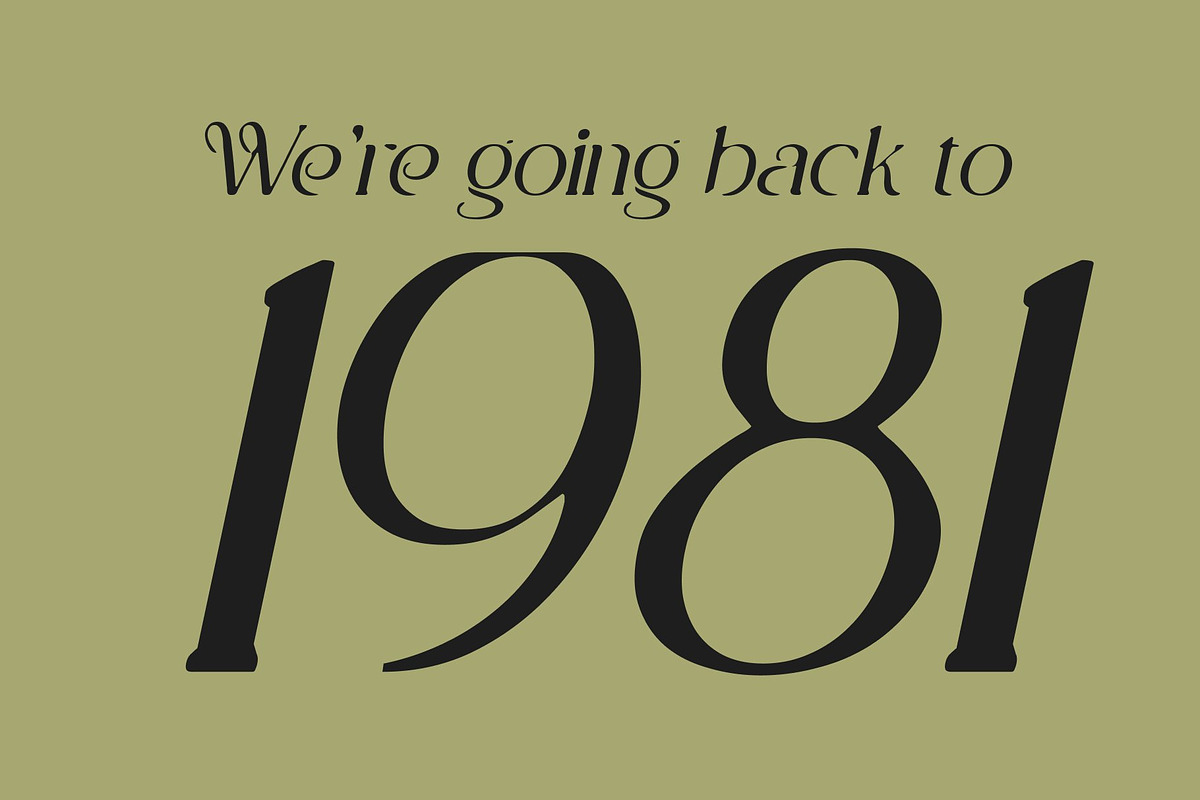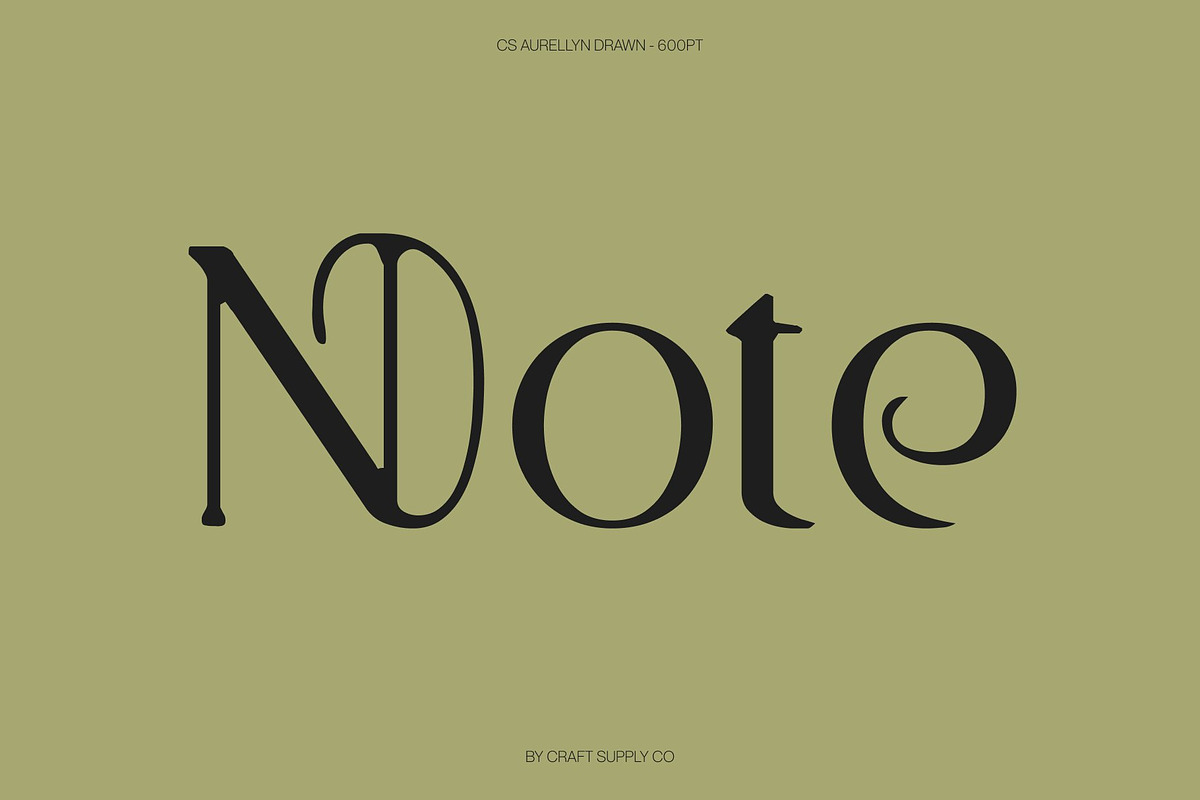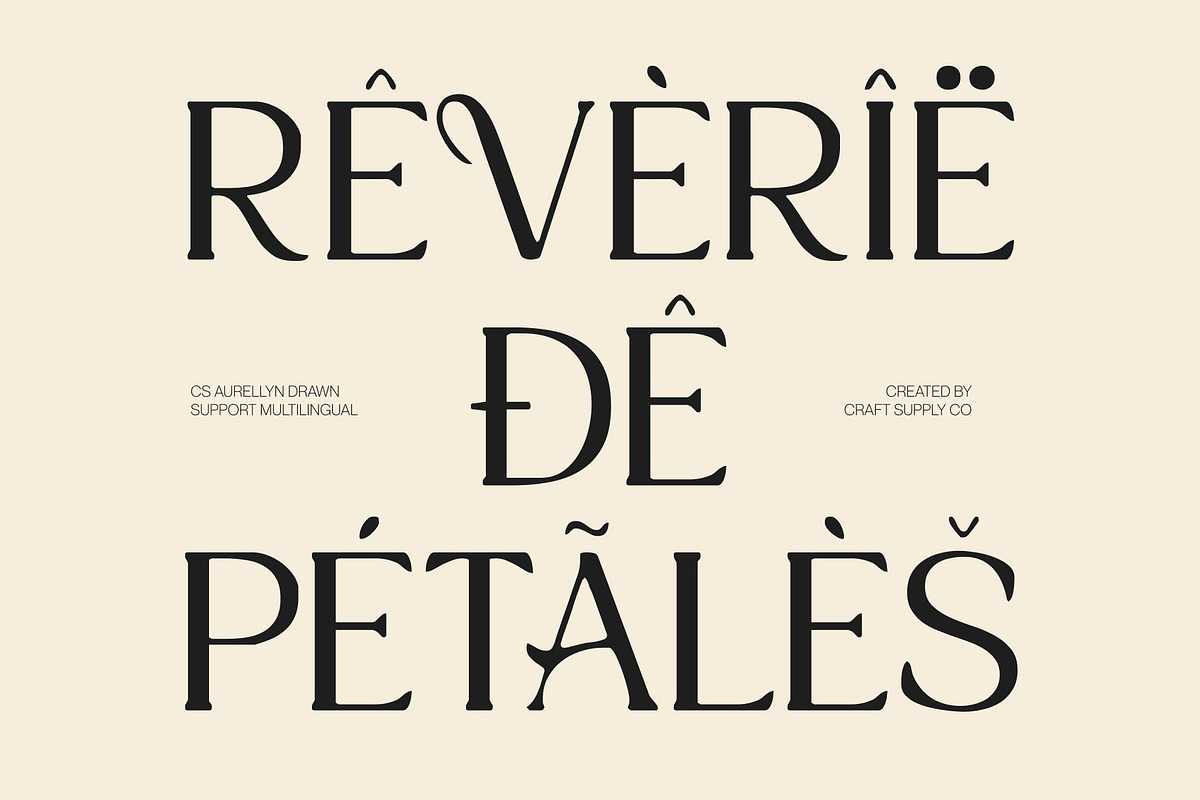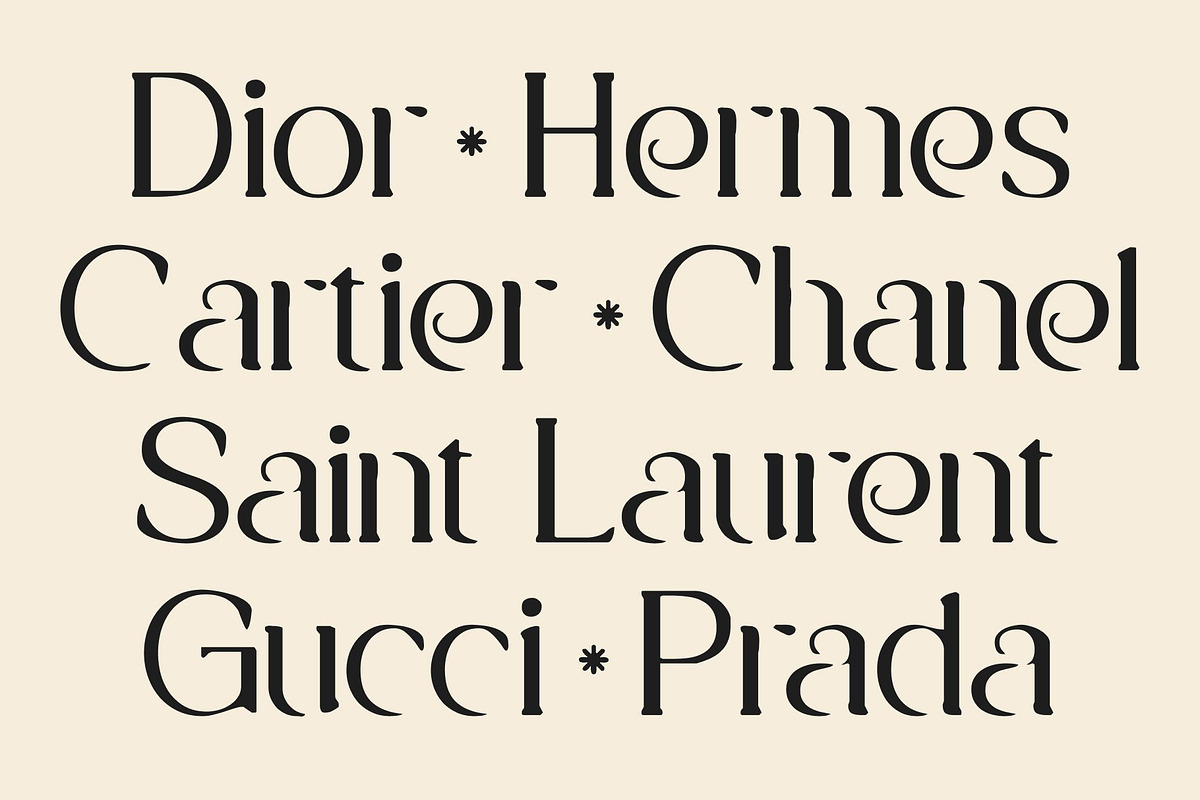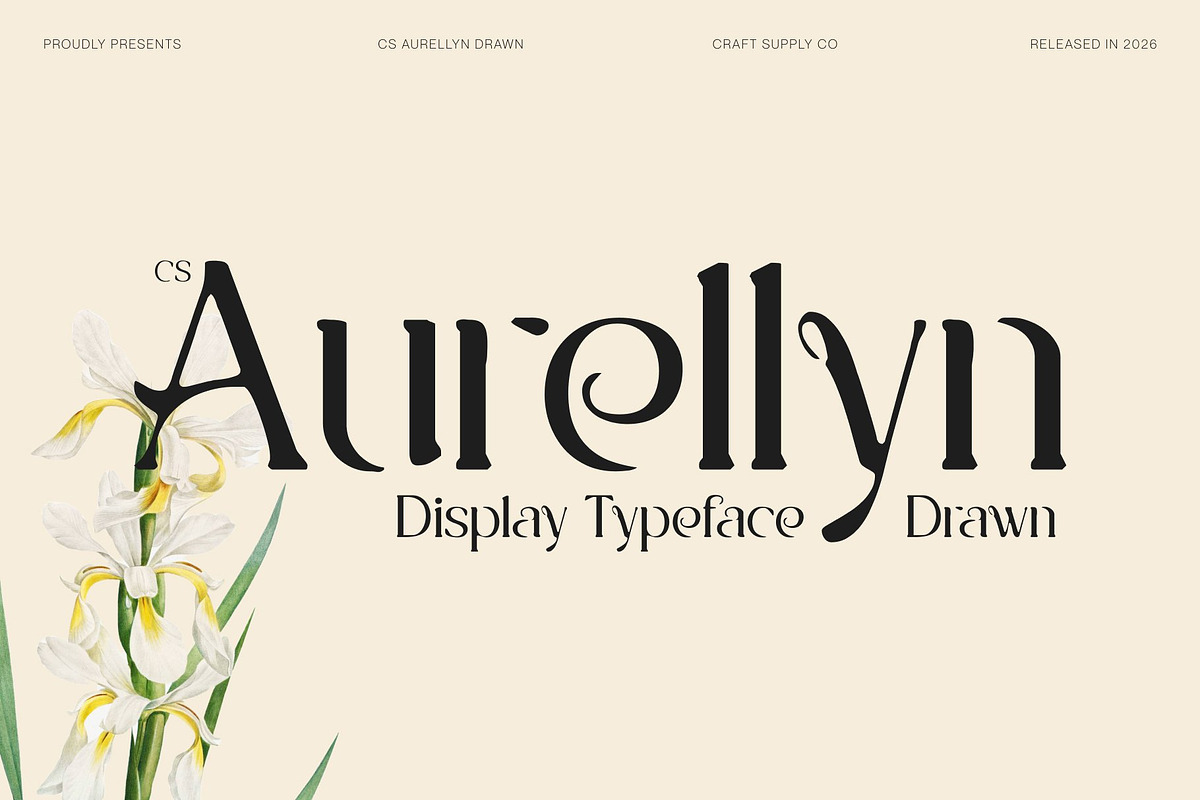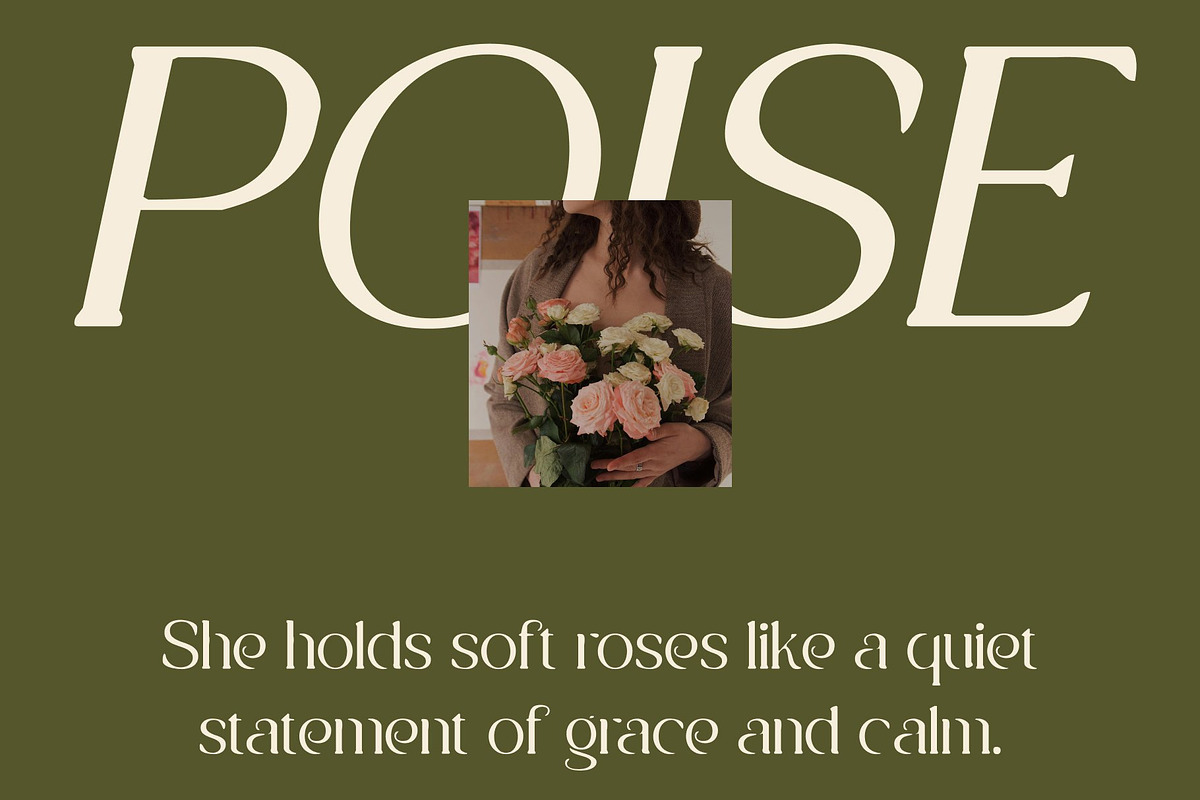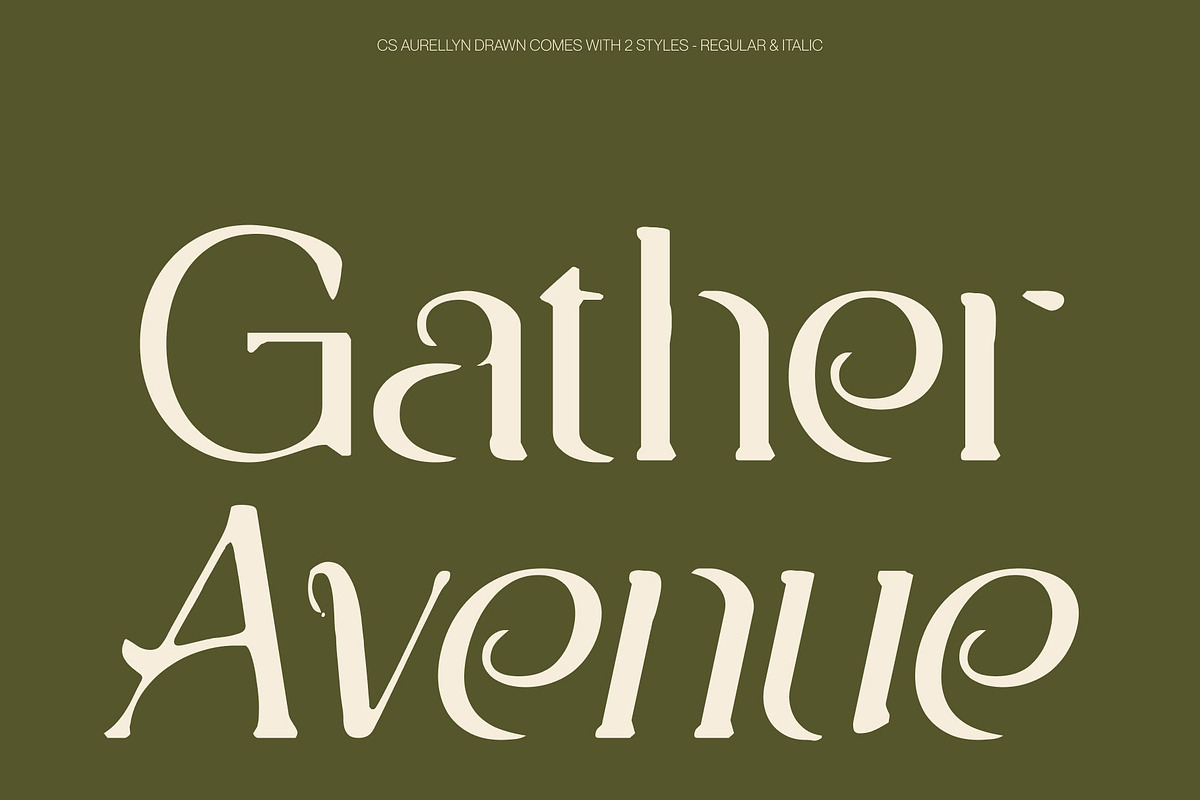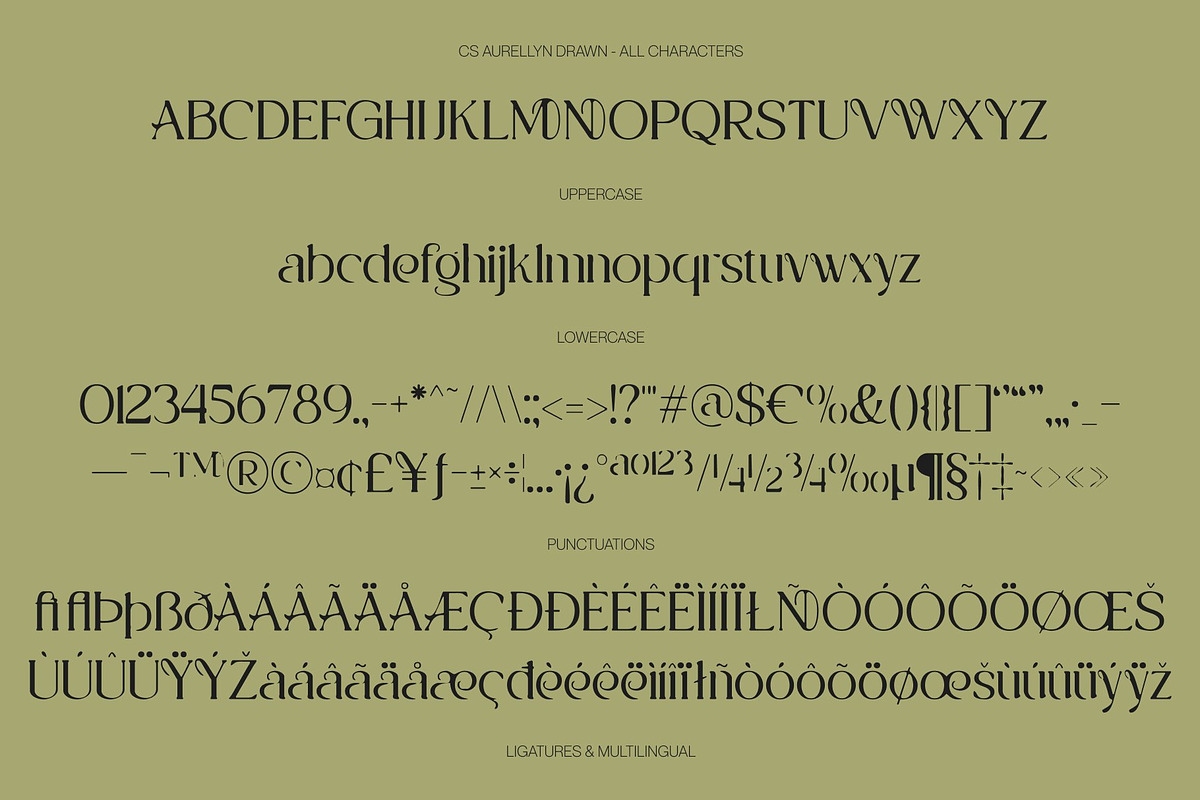
CS Aurellyn Drawn
CS Aurellyn Drawn – Modern Art Nouveau Serif with Elegant Flow
Modern Art Nouveau Serif Font with Hand-Drawn Organic Grace This is a modern Art Nouveau serif font defined by smooth, flowing lines and graceful organic forms, enhanced with a subtle hand-drawn texture. Blending the elegance of classic Art Nouveau with contemporary refinement, this typeface feels sophisticated, stylish, and visually captivating. The drawn finish adds warmth and artistry, giving the font a soft, human presence while preserving its luxurious appeal.
Organic Curves with Refined Handcrafted Expression The letterforms feature natural curves and harmonious connections inspired by traditional Art Nouveau lettering. The added drawn texture introduces gentle irregularities that create depth and authenticity, enhancing the sense of movement within each character. This balance between structure and organic flow gives the font an elegant rhythm that remains readable while expressing artistic beauty.
Timeless Elegance with Modern Sophistication This font merges decorative grace with modern clarity, resulting in a serif that feels both timeless and current. Its flowing contours and refined proportions deliver a fashionable, high-end aesthetic, while the hand-drawn nuance prevents it from feeling rigid or overly formal.
Perfect for Editorials, Luxury Branding, and Fashion Designed for premium and expressive applications, this font is ideal for editorials, luxury branding, fashion campaigns, packaging, and sophisticated display layouts. Its elegant Art Nouveau-inspired forms and subtle drawn texture elevate headlines, logos, and key visuals with beauty, refinement, and modern artistic elegance.
- CS Aurellyn Drawn Regular
- CS Aurellyn Drawn Italic